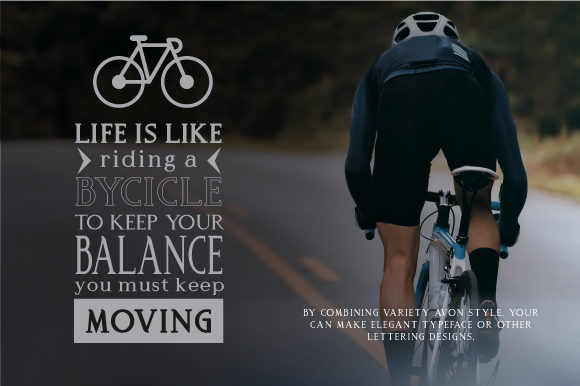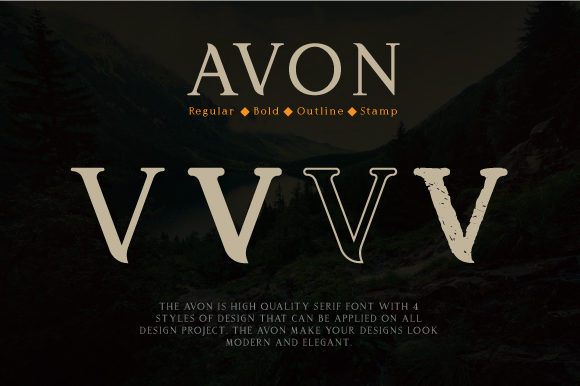
The Avon Font: Elevate Your Designs with Elegance and Modernity
I’ll never forget the time I was working on a project for a high-end client, and I was struggling to find the perfect font to match their brand’s sophisticated aesthetic. I had tried countless serif fonts, but none of them seemed to quite hit the mark. That was until I stumbled upon the Avon font. With its elegant and modern touch, it instantly elevated my design and exceeded my client’s expectations. In this article, I’ll share with you why I’m obsessed with the Avon font and how you can make the most of it in your own design projects.
An Honest Review of Avon Font
What I Love About Avon Font
• ✨ Elegant and modern serif design that adds a touch of sophistication to any project
• ✅ Highly versatile and suitable for a wide range of design applications, from logos and branding to packaging and editorial design
• 🔥 Excellent readability, even at small font sizes
• 🎨 Beautifully crafted with attention to detail, making it perfect for designers who value typography
While the Avon font is an excellent choice for many design projects, there are a few things to keep in mind:
• 🤔 Some users may find the font’s serifs a bit too ornate for certain applications, such as body text or small font sizes.
• ⚠️ As with any font, it’s essential to test it thoroughly to ensure it works well with your specific design and layout.
The Backstory of Avon Font
The Avon font was designed by a team of typographers who wanted to create a modern and elegant serif font that would meet the needs of designers and crafters. Inspired by classic serif fonts, but with a fresh and contemporary twist, the Avon font is the result of careful craftsmanship and attention to detail.
Q: What type of projects is the Avon font best suited for?
A: The Avon font is highly versatile and suitable for a wide range of design applications, from logos and branding to packaging and editorial design.
Q: Is the Avon font easy to read?
A: Yes, the Avon font is designed with readability in mind, making it perfect for body text and captions.